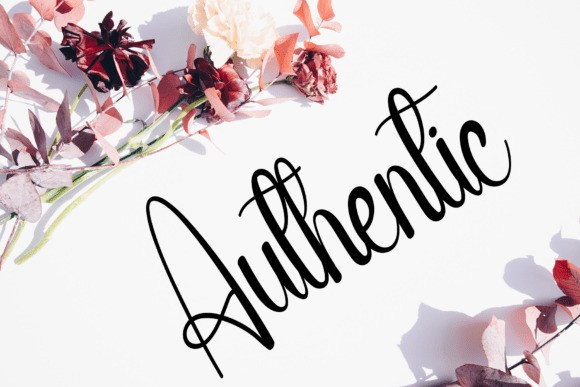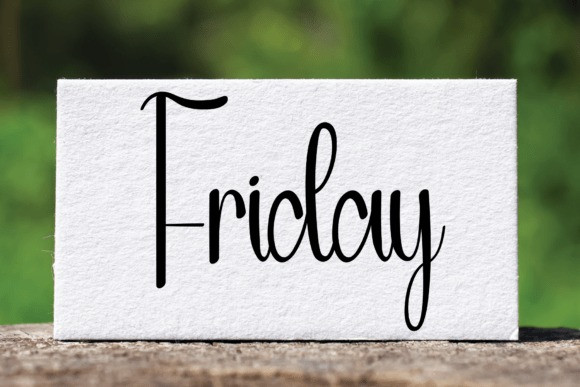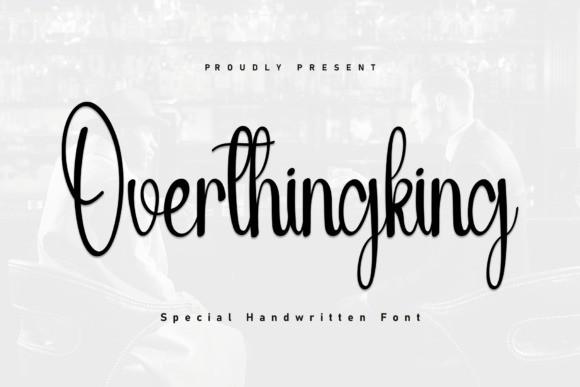
Overthingking Script Font
Overthingking Script Font is a sweet and beautiful handwritten font. Featuring characters that dance along the baseline, this font will add a cozy accent to any design project you wish to create!